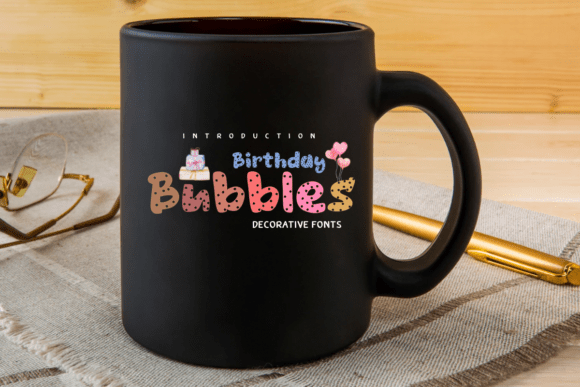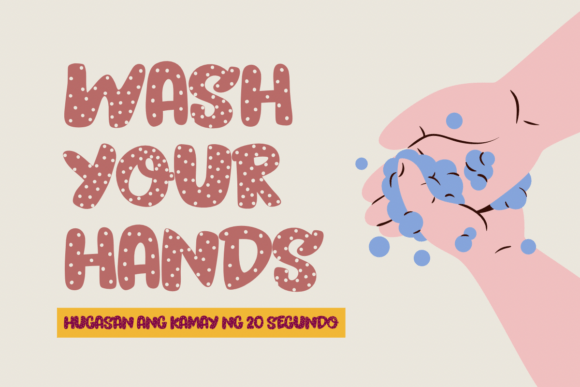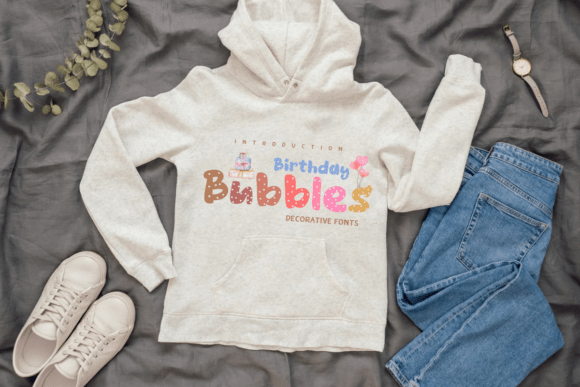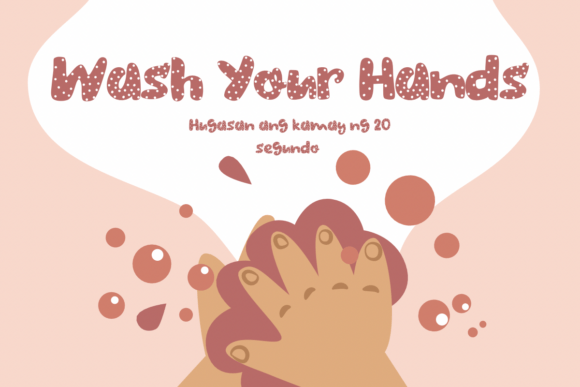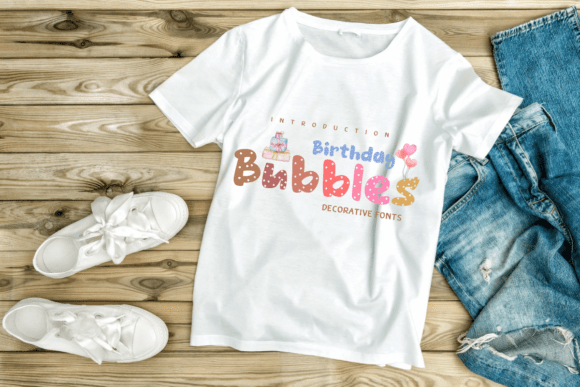
The Joy of Birthday Bubbles Font: A Designer’s New Best Friend
I still remember the time I was working on a birthday party invitation project, and I just couldn’t find the right font to match the playful and festive vibe of the design. The client wanted something that would make the invitation feel like a celebration, but I was stuck with a bland, generic font that just didn’t cut it. That’s when I stumbled upon the Birthday Bubbles font, and let me tell you, it was love at first sight! ✨
A Font that’s the Life of the Party
Birthday Bubbles is a fun and festive decorative font that’s filled with personality and joy. Its bubbly letterforms, sprinkled with polka dots, make it the perfect pick for birthday cards, invitations, party decor, and playful branding projects. It’s colorful, cute, and celebration-ready! 🎉
- ✨ The playful and whimsical design that’s perfect for kids’ parties and celebrations
- ✅ The font’s versatility – it can be used for both digital and print projects
- 🎉 The variety of OpenType features, glyphs, and stylistic alternates that allow for endless customization
- 👀 The adorable polka dots that add a touch of fun and playfulness to any design
While Birthday Bubbles is an amazing font, there are a few things to keep in mind: 🤔
- ⚠️ The font can be a bit overwhelming if overused – it’s best to use it as an accent font or in moderation
- ⚠️ Some of the OpenType features and glyphs may not work properly in older software or browsers
The Designer Inspiration Behind Birthday Bubbles
According to the font’s creators, Birthday Bubbles was inspired by the joy and excitement of childhood celebrations. The font’s playful design and whimsical details are meant to evoke the feeling of blowing bubbles and making wishes on a special day. 🎂